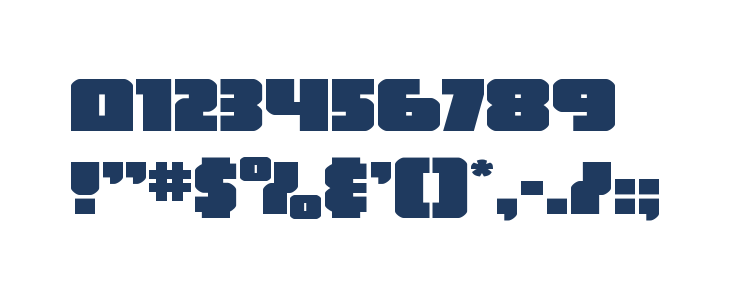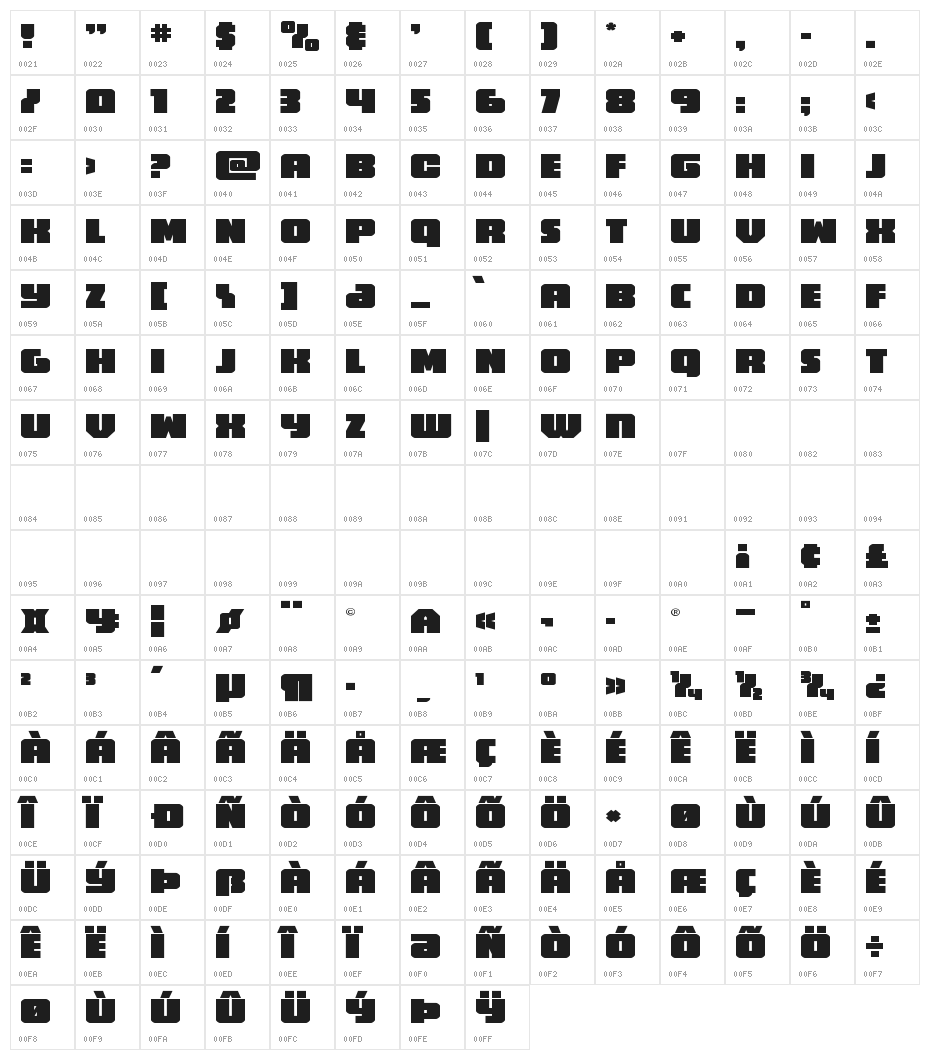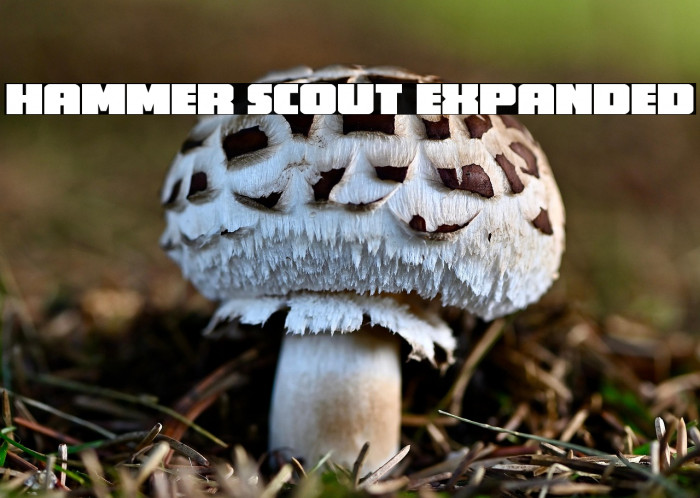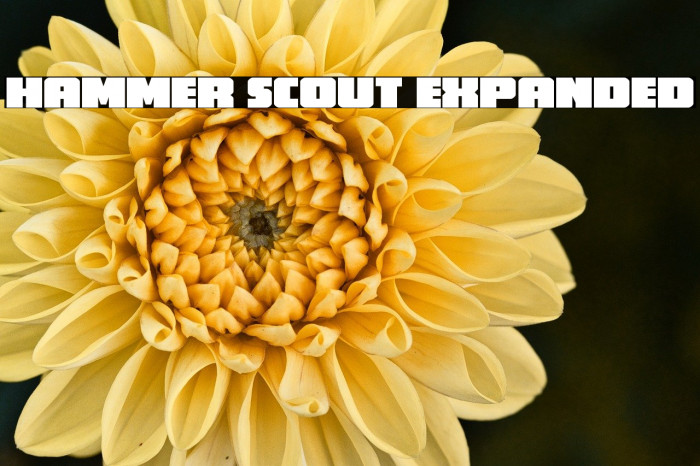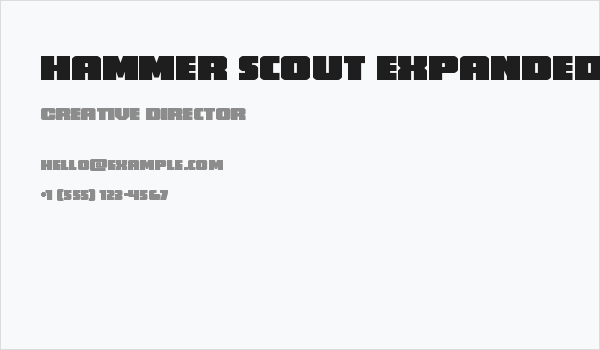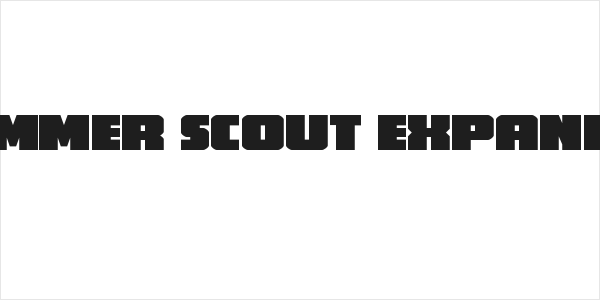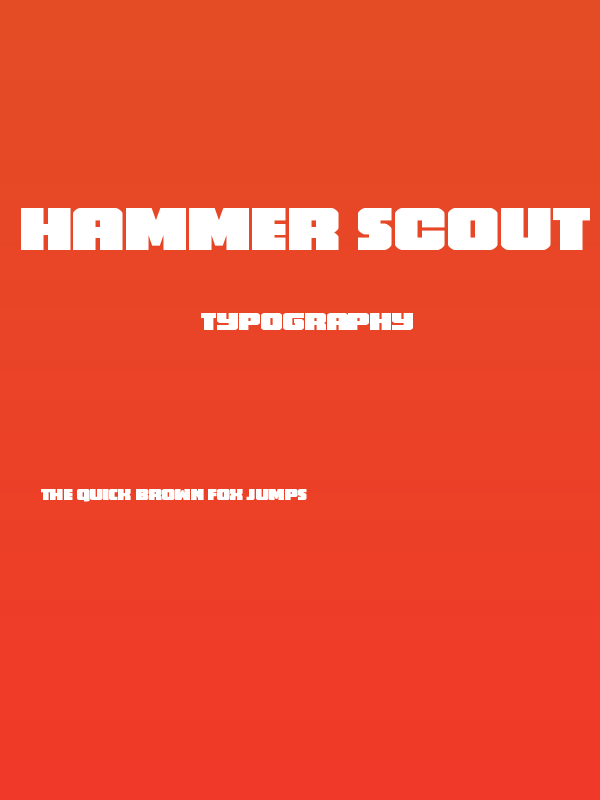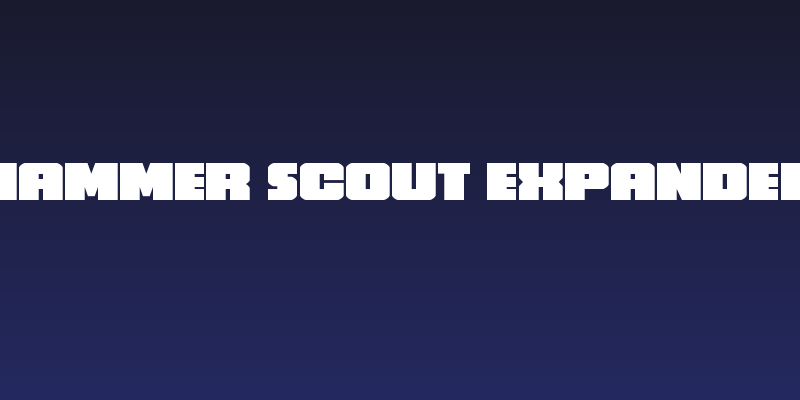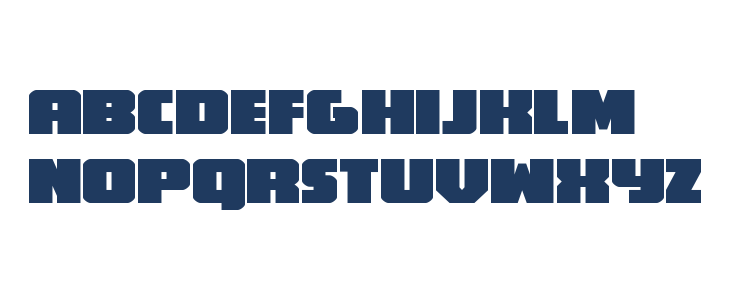
Hammer Scout Expanded Font
Hammer Scout Expanded Description
This font features a bold and robust design with a distinctly modern and industrial feel. The characters are heavily weighted, with thick strokes that convey strength and impact. The expanded width of the letters gives them a commanding presence, making them ideal for attention-grabbing headlines or titles. The geometric shapes and clean lines contribute to a contemporary aesthetic, while the uniformity in character height and width ensures a cohesive look. The font includes both uppercase and lowercase letters, numerals, and a variety of special characters, all maintaining the same bold style.
| Proposed Projects | Ideal for use in branding, posters, headlines, and any project requiring a strong, impactful typeface. |